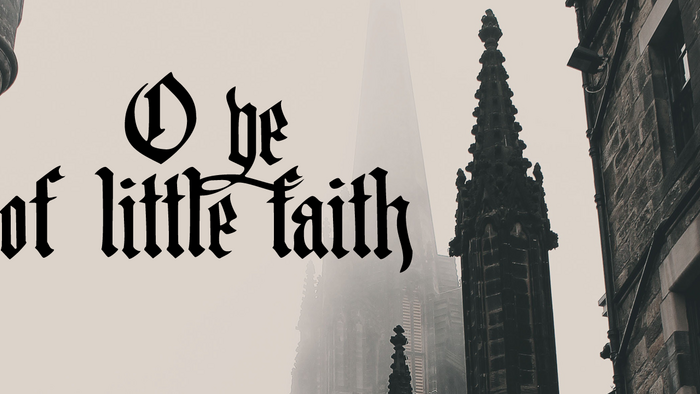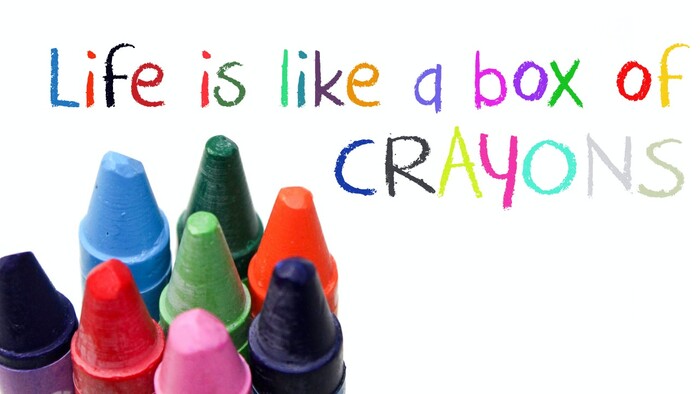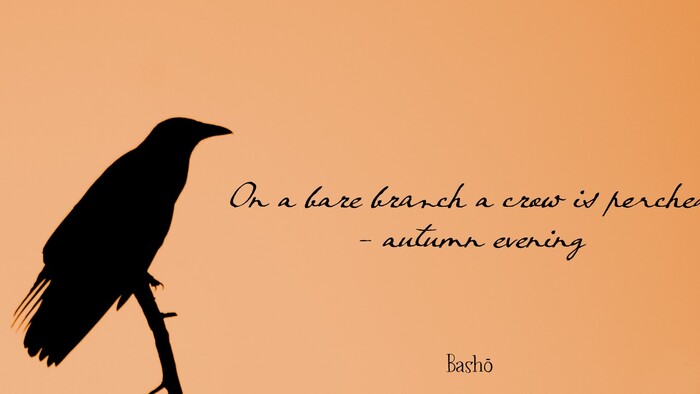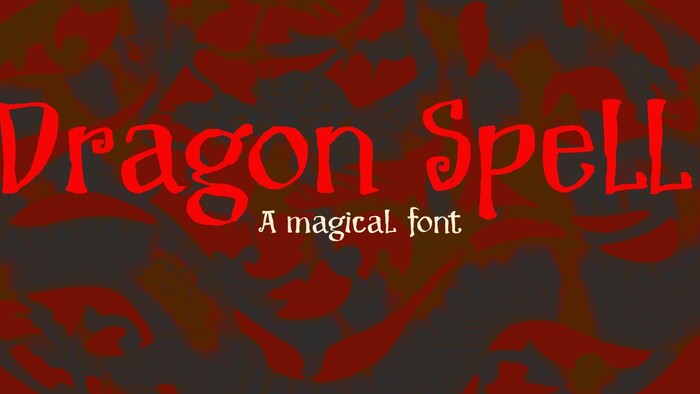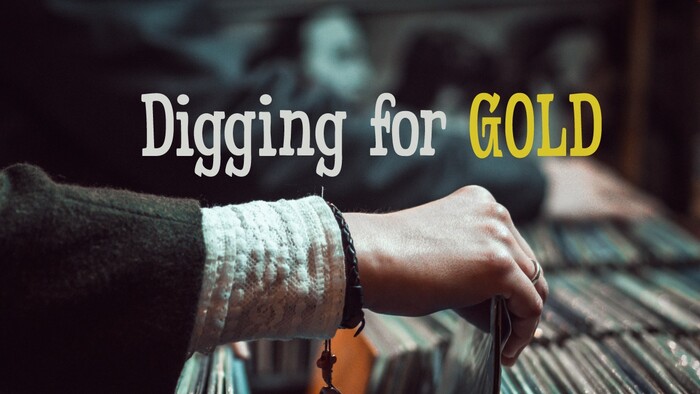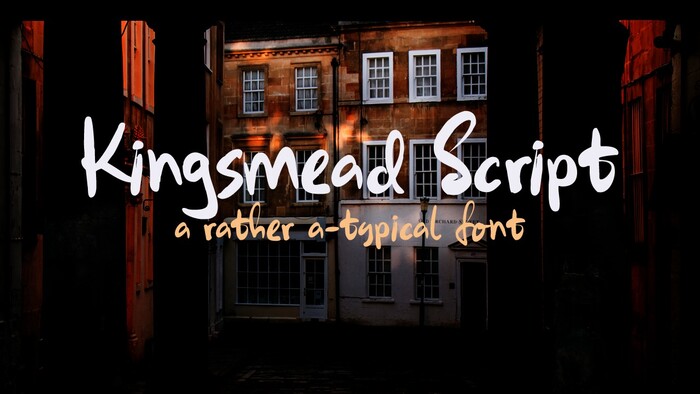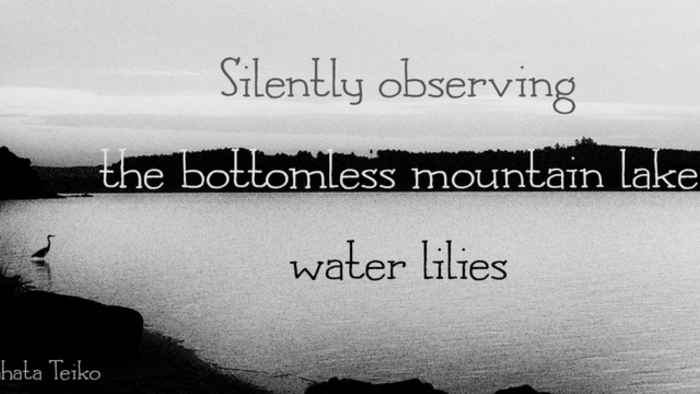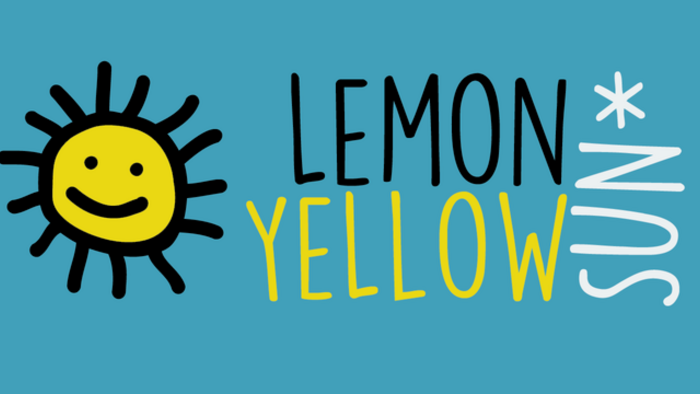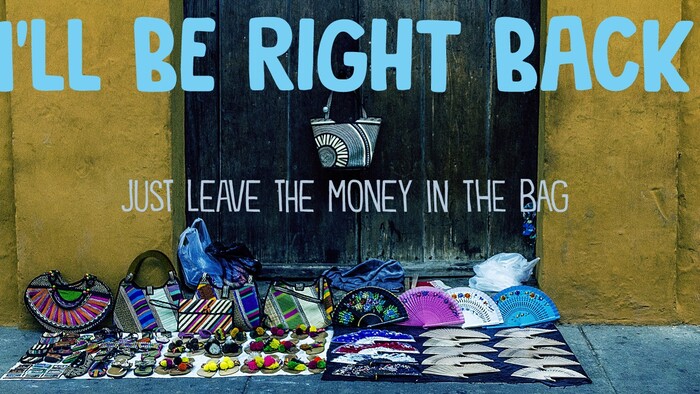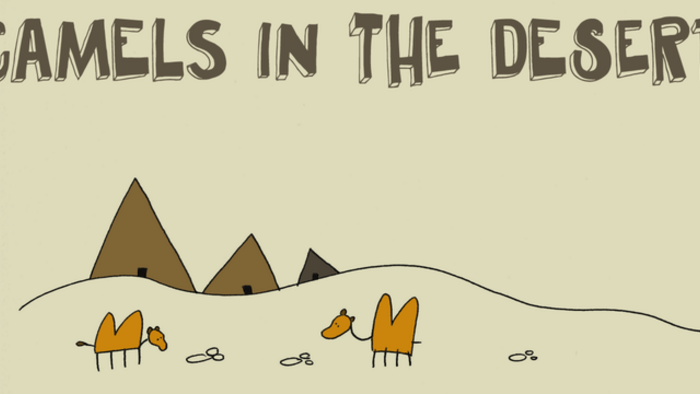
Hanoded foundry highlights.
Hanoded.
Hanoded is a type foundry based in the Netherlands and run by David Kerkhoff. The foundry specializes in hand-printed typefaces, using brushes, pens, ink, and paint to create a collection of unique font families. Hanoded fonts have their own personality and flair, with each font family often following its own distinct theme. The typefaces are frequently seen in consumer goods packaging, books (especially children’s books and fantasy stories), and movie titles.
Market Square
The Market Square font family was created for actual use at a farmer’s market. It consists of 4 different fonts (each with its own Italic style), ranging from a fat marker font to a thin, squarish font. Each of them oozes freshness and authenticity and they were designed to complement each other. The cherry on top is the cute doodle font, loaded with fresh produce and seafood - just like you’d see at a real market square.
Lemon Yellow Sun
Lemon Yellow Sun, named after a line from the designer’s favorite Pearl Jam song, is one of Hanoded’s most popular typefaces. The font is a tall, all caps typeface with lots of bouncy glyphs and diacritics, and upper and lowercase letters designed to mingle.
Kingsmead Script
KIngsmead Script is a stylish yet old-fashioned font, named after an electoral ward within the city of Bath in England, famous for the Roman Baths in the city center. A handmade font, Kingsmead Script comes with diacritics and some discretionary ligatures for double lowercase letter combinations.
Crayon Crumble
Crayon Crumble is exactly what it reads on the package: it was made using cheap crayons, since the cheapies crumble a lot. It is a fun, kiddie font, but with a grown-up look. It comes with all the accents.
Fleabitten
This font family was created from the designer’s love for flea markets, second-hand stores, and anything “pre-loved”, as a way to do his part in helping the planet. Fleabitten is a Western style serif font, perfect for line dance festival posters.
Dragon Spell
Dragon Spell is a magical handmade font created with a small brush and Chinese ink that comes with a realm of diacritics. It can be used for spells, books of magic, or even creepy Halloween cards.
Languedoc
Languedoc, a former province of France now located in the Occitaine region, is a favorite camping spot for the designer and his family. The font itself is a beautiful and useful typeface: it is a handmade serif that is a bit rough around the edges, but very legible and fun to use, and it comes with a large amount of diacritics. Because of its legibility, Languedoc works well for texts, product packaging, and cookbooks.
Pundak
A “Pundak” is a combined restaurant and gas station where you can order food such as fries, schnitzel, and salad. Inspired by a pundak where the designer used to work, this font family is an all caps, contoured font with all the diacritics. It is ideal for packaging, headlines, and posters.
Southwark
The designer named this font after one of his favorite cities: London - or rather, a county bordering the city of London. The name “Southwark” comes from the Anglo-Saxon word Suthriganaweorc, which means “Fort of the men of Surrey”. Southwark is a handmade Clarendon, created using a Japanese brush pen for the outlines and a brush and Chinese ink to give the glyphs texture. The font family’s uneven look and brushy texture works well on posters, greeting cards, and product packaging.
Blackminster
Blackminster is a Gothic font, inspired by a handwritten set of letters (created by Harry Lawrence Gage) that the designer found in a 1916 book about lettering. The family comes with many diacritics and an alternate swashy g and y. Blackminster works well on anything that requires a Gothic look, including Gothic fiction books, metal album covers, skateboards, and downhill mountain bikes.
Crowfeather
Crowfeather is a family of two distinct fonts that work well together: a classic Serif and an old school script font. The font is loosely named after Olaf Tryggvason, the legendary Norwegian Viking king.